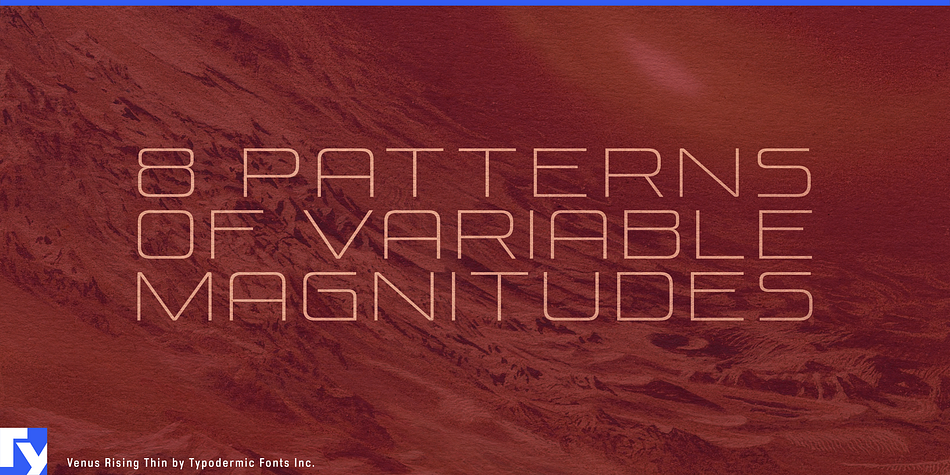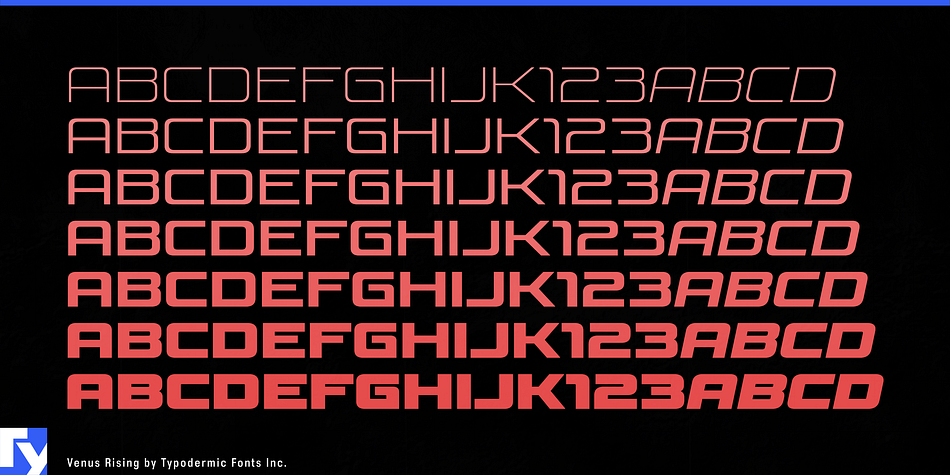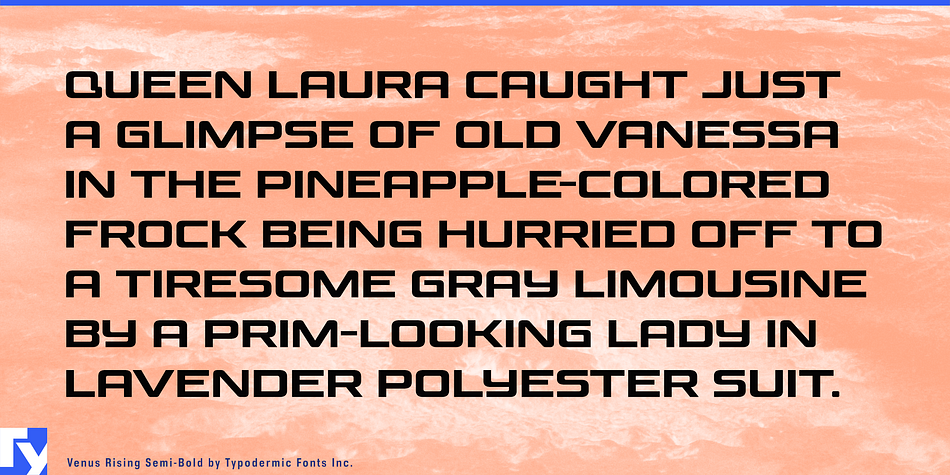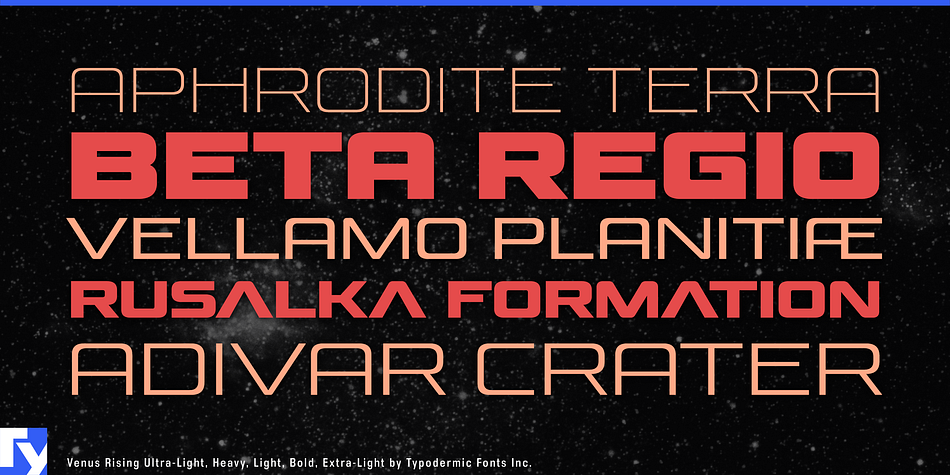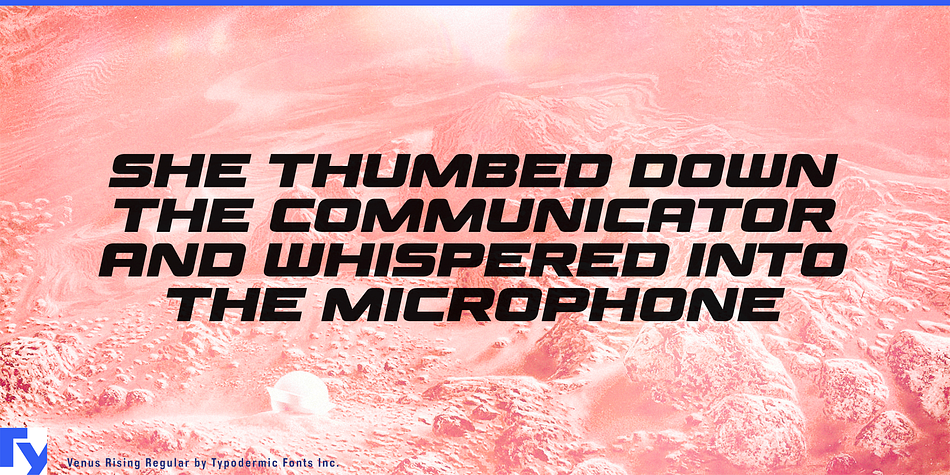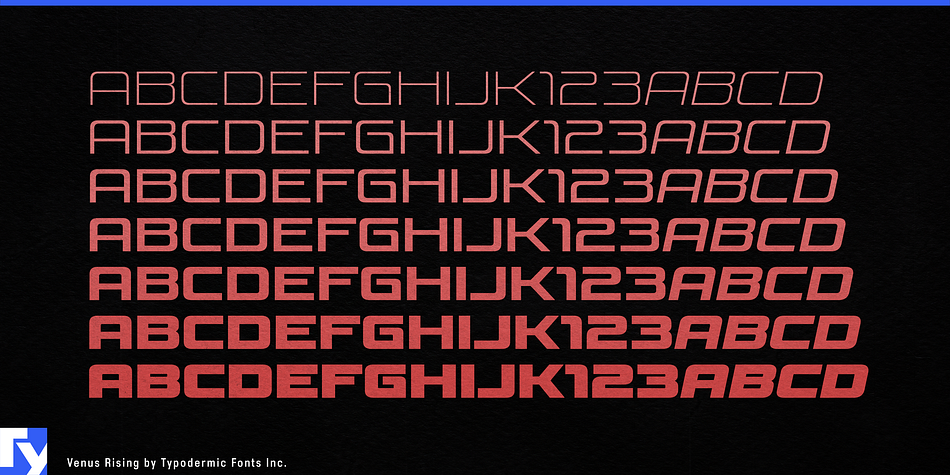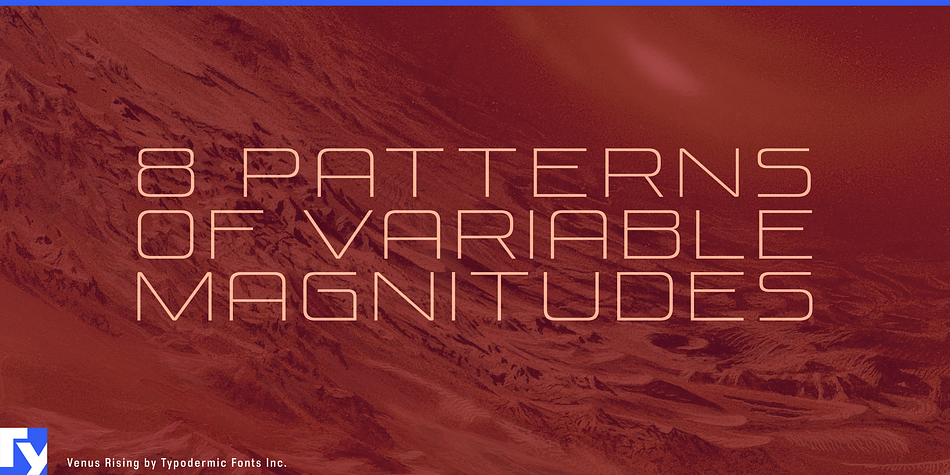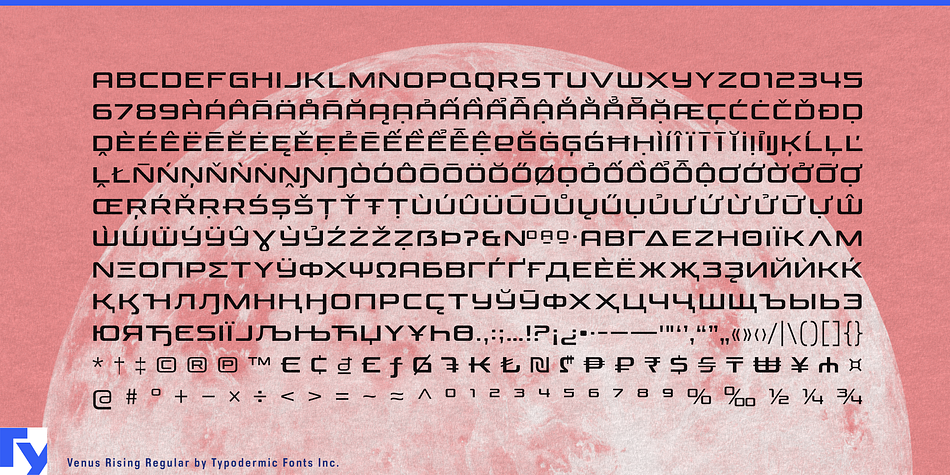
Venus Rising is a display sans font family. This typeface has fourteen styles and was published by Typodermic Fonts Inc.
Venus Rising is a quadratic, ultra modern typeface with anomalous style. Almost all current Latin languages are supported as well as Greek and Cyrillic. OpenType features include numeric ordinals, fractions and an alternate Q and Y.